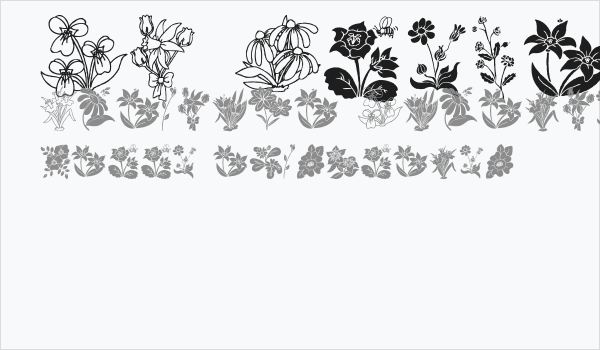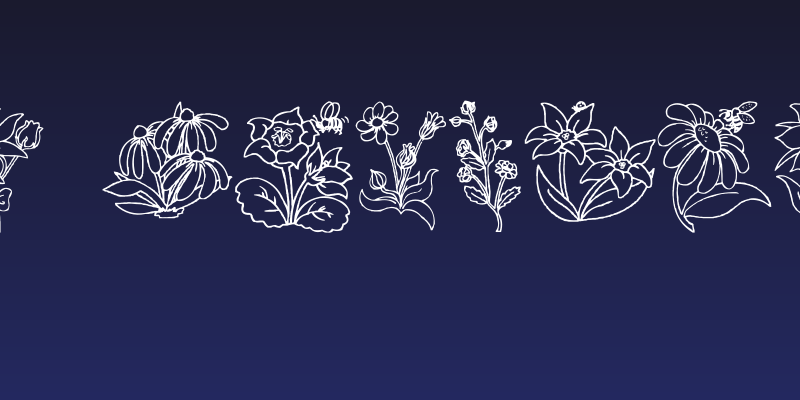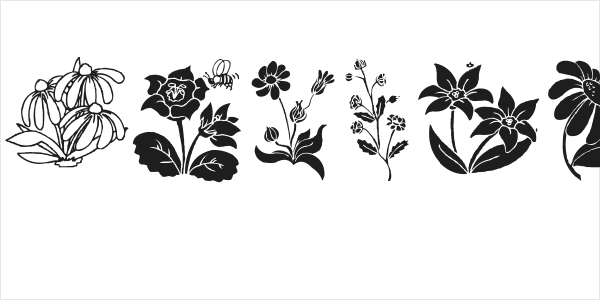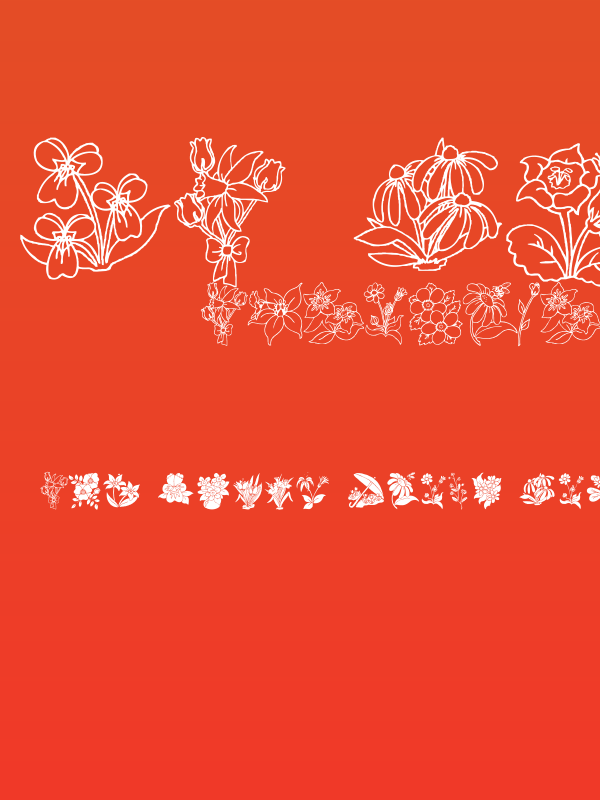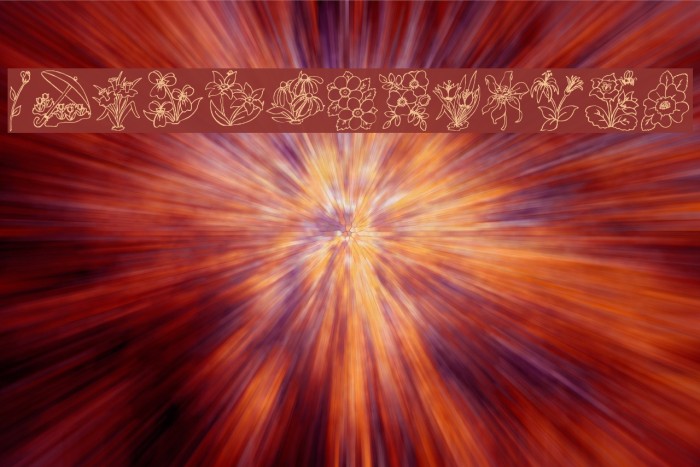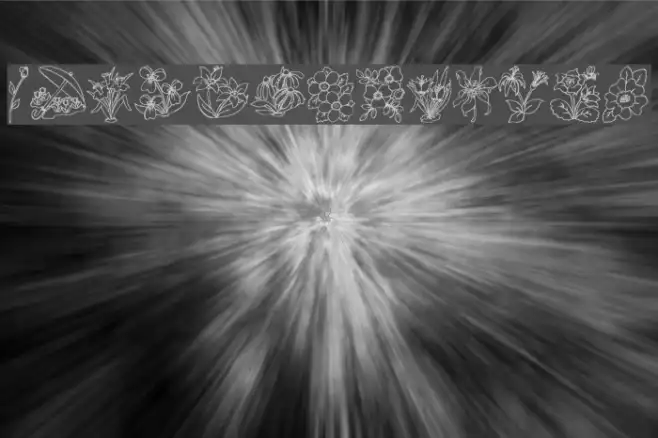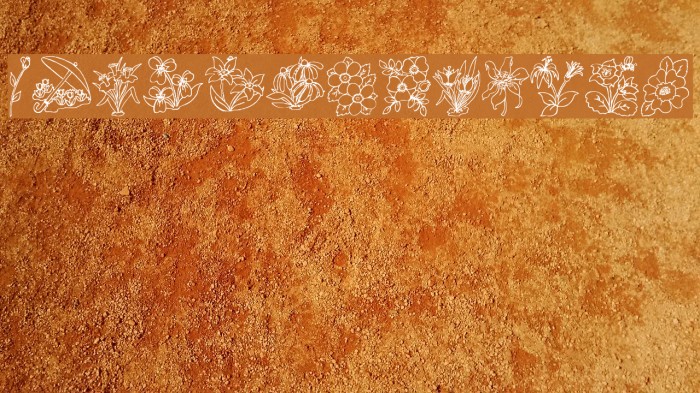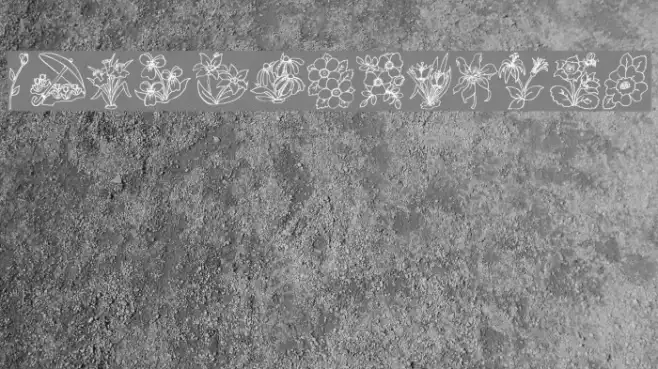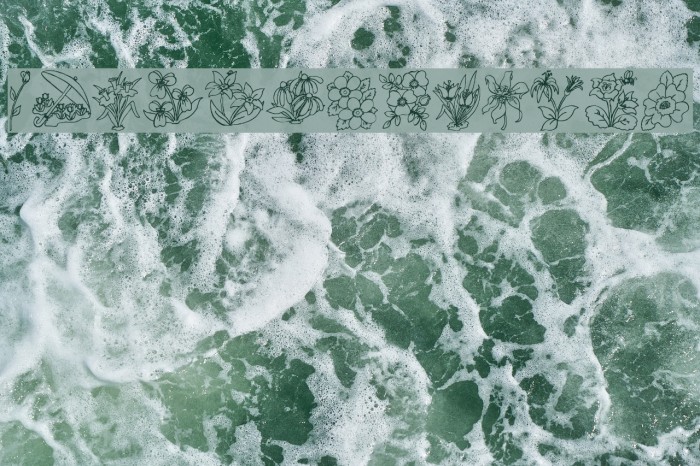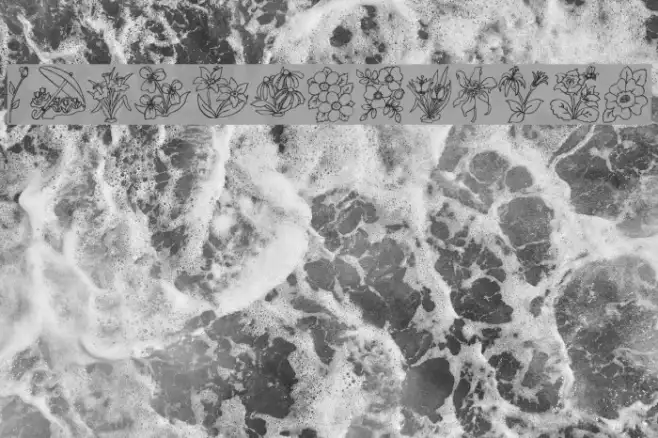
DT Flowers 2 Font
DT Flowers 2 Description
A decorative dingbat set featuring a variety of detailed flower illustrations in both outline and solid styles, with each character representing a unique floral design rather than traditional alphanumeric glyphs.
| Overall Style | Decorative, Botanical |
| Use Case | Ornamental elements, embellishments, icons, crafts. |
| Proposed Projects | Greeting cards, invitations, scrapbooking, decorative borders, digital stickers, packaging design. |